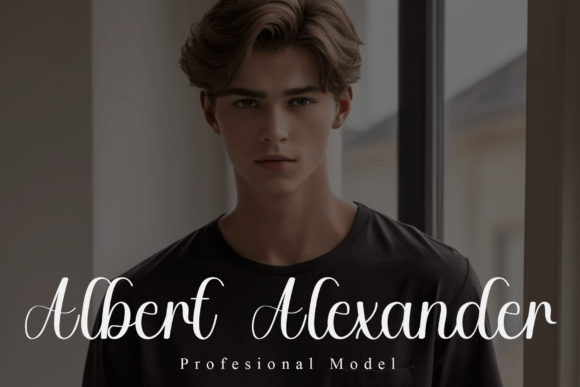
Elegant Alphabet Font: Elevate Your Designs with Timeless Elegance
In the world of typography, few fonts capture the essence of elegance and sophistication as effortlessly as the Elegant Alphabet Font. This lovely and timeless handwritten font has been making waves in the design community, and for good reason. Its unique blend of classic charm and modern flair makes it the perfect choice for creating eye-catching logos, branding, and quotes that leave a lasting impression.
What Makes Elegant Alphabet Font So Special?
The Elegant Alphabet Font boasts a range of features that set it apart from other fonts. Here are just a few reasons why it’s become a favorite among designers:
- Unique and Beautiful Touch: Every letter in the Elegant Alphabet Font has been carefully crafted to have a unique and beautiful touch. This attention to detail gives the font a level of sophistication and elegance that’s hard to find elsewhere.
- Handwritten with Love: The Elegant Alphabet Font is a handwritten font, which means it has a personal and organic feel that’s perfect for creating designs that feel warm and inviting.
- Timeless Appeal: Unlike trendy fonts that quickly go out of style, the Elegant Alphabet Font has a timeless appeal that ensures your designs will remain stylish for years to come.
How to Use Elegant Alphabet Font in Your Designs
The Elegant Alphabet Font is incredibly versatile, making it suitable for a wide range of design applications. Here are just a few ideas to get you started:
- Logo Design: Create a stunning logo for your business or brand with the Elegant Alphabet Font. Its elegant and sophisticated feel makes it perfect for companies that want to convey a sense of luxury and refinement.
- Branding: Use the Elegant Alphabet Font to create a consistent visual identity for your brand. Its timeless appeal ensures that your branding will remain stylish and effective for years to come.
- Quotes and Typography: Add a touch of elegance to your quotes and typography with the Elegant Alphabet Font. Its beautiful and unique letterforms make it perfect for creating stunning typographic designs.
Tips and Tricks for Getting the Most Out of Elegant Alphabet Font
To help you get the most out of the Elegant Alphabet Font, here are a few tips and tricks to keep in mind:
- Experiment with Colors: The Elegant Alphabet Font looks stunning in a range of colors, from classic black and white to bold and bright hues. Experiment with different colors to find the perfect look for your design.
- Play with Pairings: The Elegant Alphabet Font pairs beautifully with a range of other fonts. Try pairing it with a bold sans-serif font for a striking contrast, or with a script font for a more elegant look.
- Pay Attention to Spacing: To ensure your design looks its best, pay attention to spacing and kerning. The Elegant Alphabet Font looks beautiful with a generous amount of spacing, so don’t be afraid to experiment with different settings.
The Benefits of Using Elegant Alphabet Font
So why should you choose the Elegant Alphabet Font for your next design project? Here are just a few benefits to consider:
- Elegance and Sophistication: The Elegant Alphabet Font adds a touch of elegance and sophistication to any design. Its timeless appeal ensures that your designs will remain stylish for years to come.
- Versatility: The Elegant Alphabet Font is incredibly versatile, making it suitable for a wide range of design applications.
- Easy to Read: Despite its elegant feel, the Elegant Alphabet Font is easy to read, making it perfect for designs that require a high level of legibility.
In conclusion, the Elegant Alphabet Font is a stunning and versatile font that’s perfect for designers who want to add a touch of elegance and sophistication to their work. Its unique and beautiful letterforms, combined with its timeless appeal, make it a great choice for a wide range of design applications. Whether you’re creating a logo, branding, or quotes, the Elegant Alphabet Font is sure to impress.